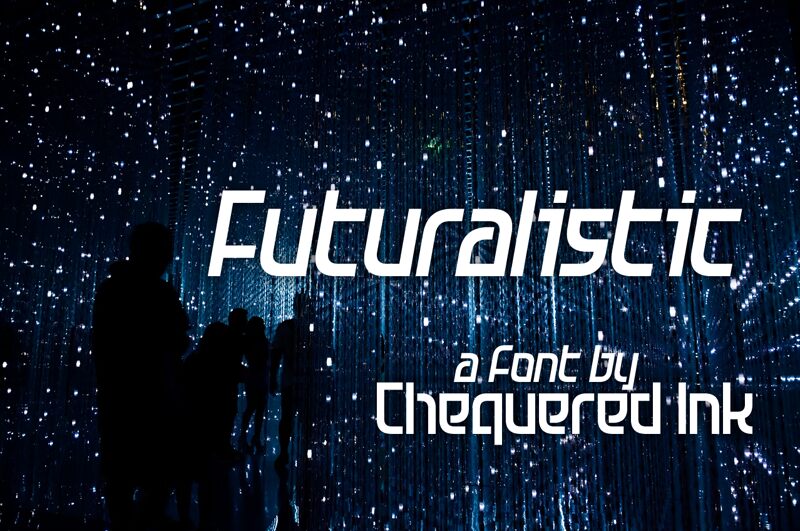
Futuralistic, a free futuristic display font by Chequered Ink, leans into a sleek retro-future mood with letters that feel shaved down to their essentials. Flat horizontal cuts and rounded turns give the font a calm, streamlined rhythm, so even simple words take on a softly synthetic, screen-born character.
It works well for sci-fi posters, game branding, tech event graphics, music cover lines, and title cards where a short phrase needs that controlled future-facing tone. As a free font, it is especially useful for logos, interface-inspired headlines, and compact wordmarks, because the letters feel modular without turning cold or mechanical.
Futuralistic font presentation and specimen